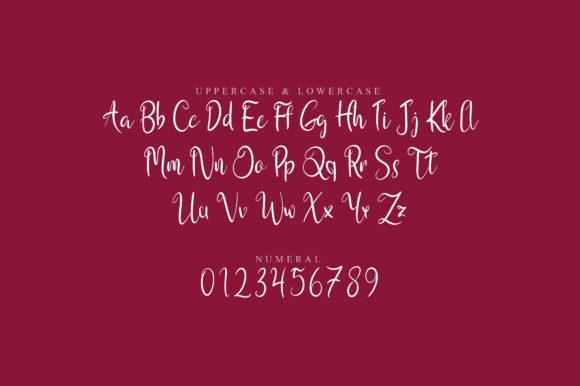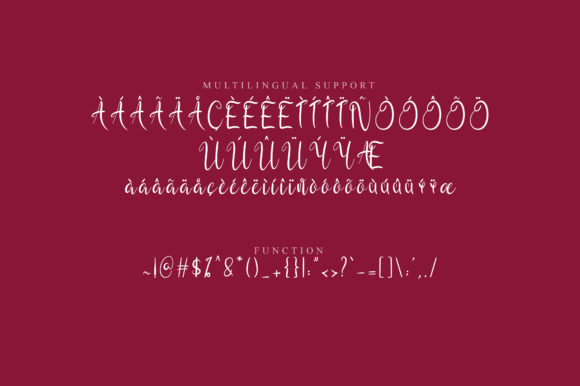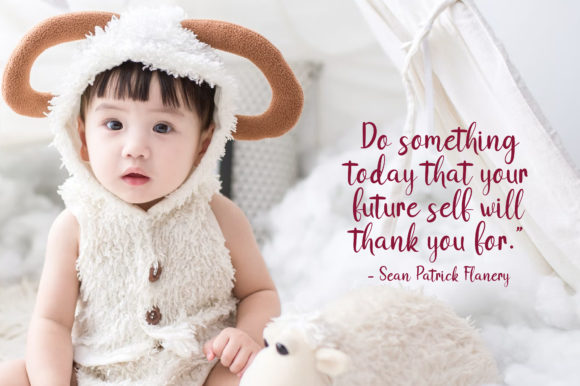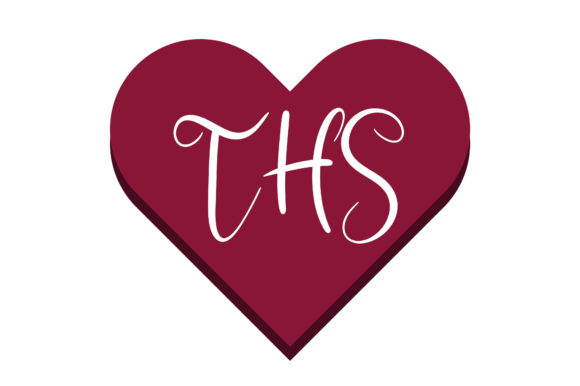
About Orang Script Font
Orang Script is a delightful and versatile handwritten font that can add a touch of charm and elegance to a wide range of design projects. With its timeless appeal, this font is a great choice for creating eye-catching logos, memorable branding materials, and captivating quotes. The carefully crafted characters of Orang Script are designed to bring a unique and beautiful touch to every element of your design, making it come alive with personality and style.
Whether you’re working on a sophisticated logo for a luxury brand, crafting impactful branding materials for a new business, or adding a creative touch to inspirational quotes, Orang Script offers the flexibility and creativity you need. Its flowing and graceful letters seem to dance along the baseline, creating a harmonious and visually pleasing effect.
One of the notable features of Orang Script is its PUA (Private Use Area) encoding, which allows you to easily access all the glyphs, swashes, and alternates that come with the font. This means you have the freedom to experiment and customize your designs with a wide range of creative options, making each project truly unique.
From its versatile application in logos and branding to its ability to elevate quotes and catch attention, Orang Script promises to be a valuable addition to your font collection. Its ability to blend elegance with a touch of playfulness can help your designs leave a lasting impression.
Whether you’re a graphic designer, artist, or creative professional, Orang Script offers you the tools to create visually striking and memorable designs. Its timeless appeal ensures that it will remain relevant and captivating for various design projects, catering to a wide audience and a multitude of styles.
In summary, Orang Script is a font that brings together charm, elegance, and versatility in a single package. Its unique characters, PUA encoding for enhanced customization, and potential to create eye-catching designs make it an excellent choice for anyone looking to add a touch of creativity and sophistication to their projects.